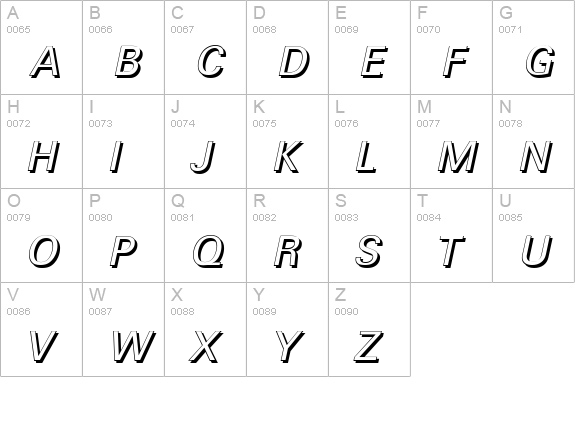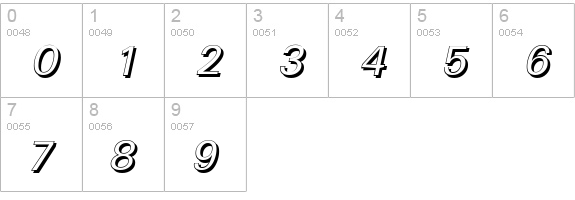
UltimateShadow-Italic Font Details
UltimateShadow-Italic is a distinctive, italic variant in the UltimateShadow typeface family \xE2\x80\x94 well suited to design and typography projects.
Introducing UltimateShadow-Italic font, a sleek and stylish typeface that exudes sophistication and elegance. With its unique italicized design, this font adds a touch of modernity to any project. The UltimateShadow-Italic font features clean lines and sharp angles, making it perfect for creating eye-catching titles, headers, and logos. This font is not only visually appealing but also highly versatile, suitable for a wide range of design applications. Whether you're working on branding, advertising, or editorial projects, the UltimateShadow-Italic font will elevate your designs to the next level. Best of all, this font is available for free download at FontsMarket.com. Don't miss out on the opportunity to enhance your design projects with the UltimateShadow-Italic font today!